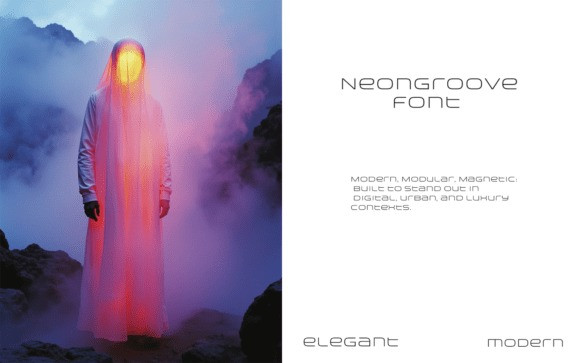
Neongroove Font
NeonGroove Font is the typographic anthem of dance floors, fashion houses, and bold digital campaigns. Born from the rhythm of house music and the lines of haute couture, this typeface turns every word into a headline. Whether it’s a mixtape cover, runway invite, or kinetic branding — NeonGroove makes your message move.